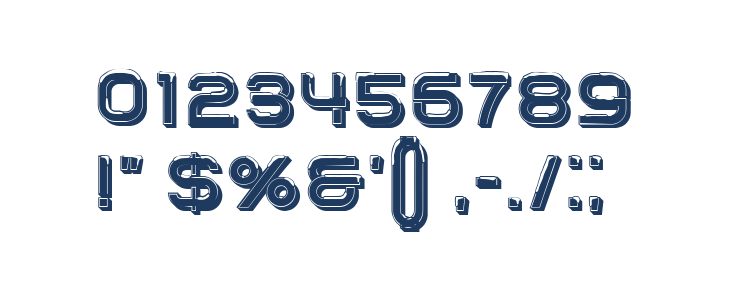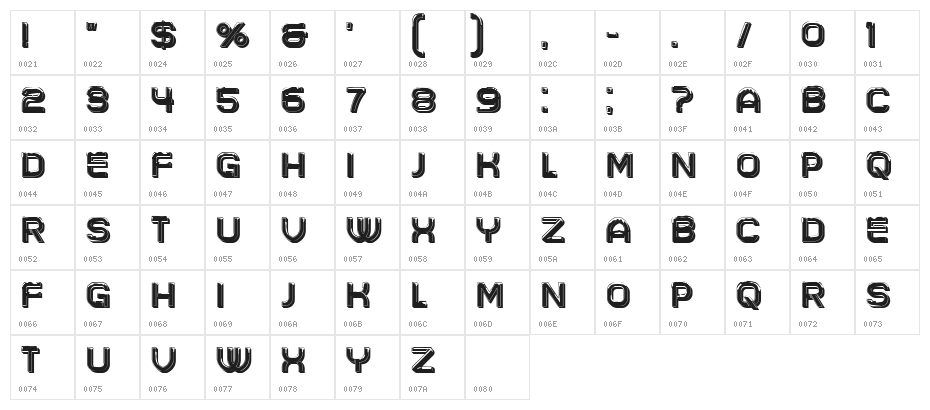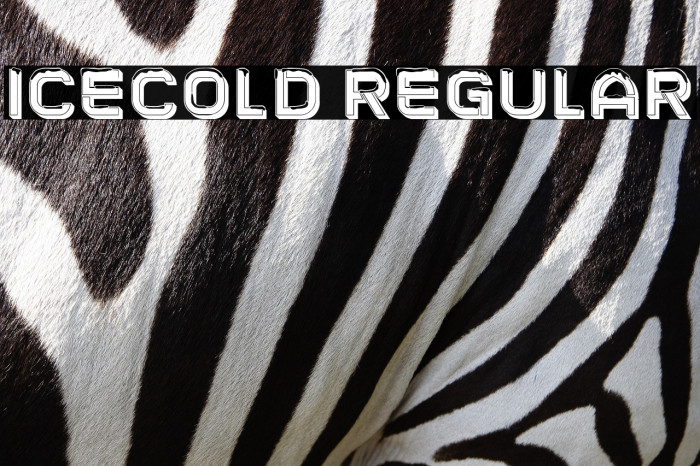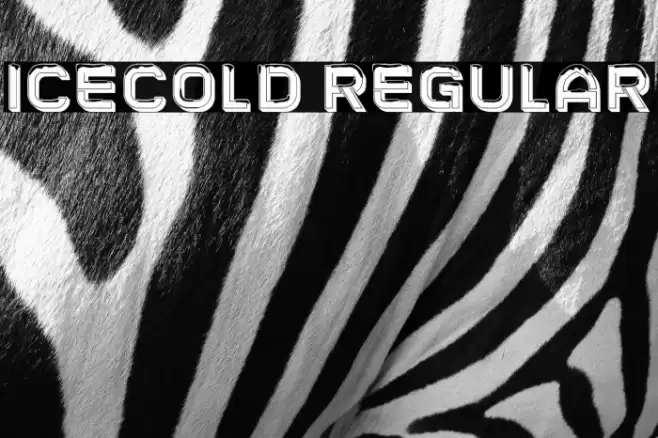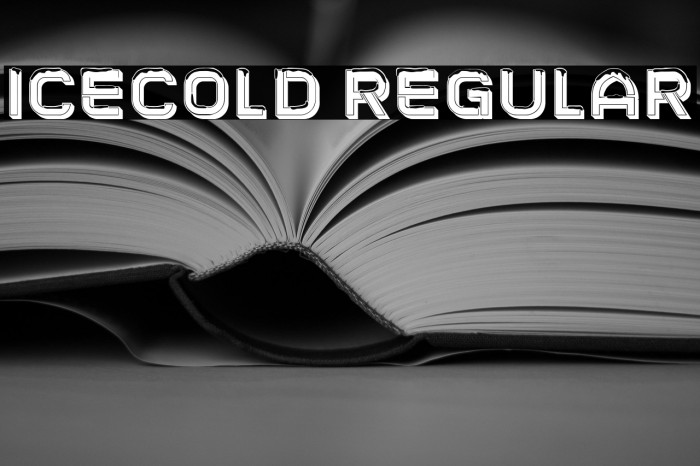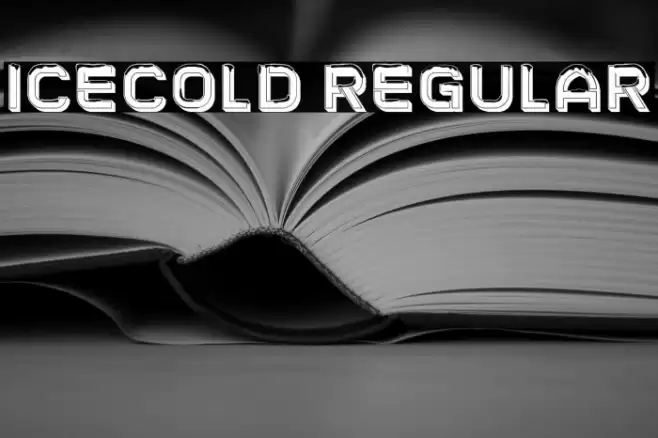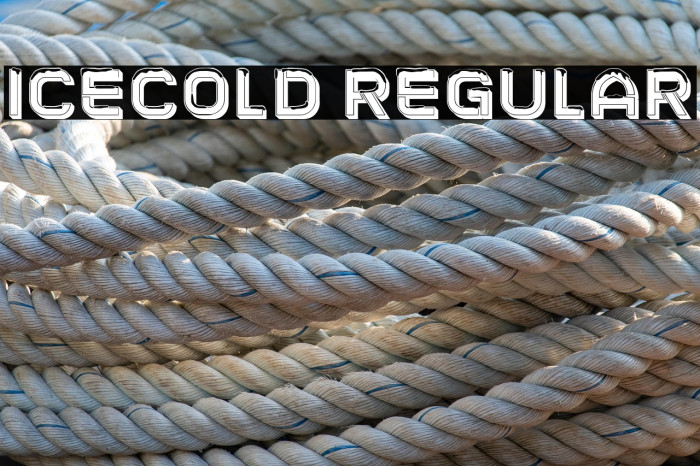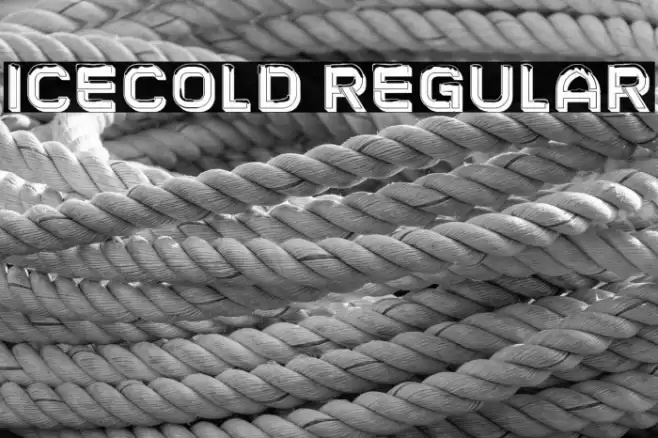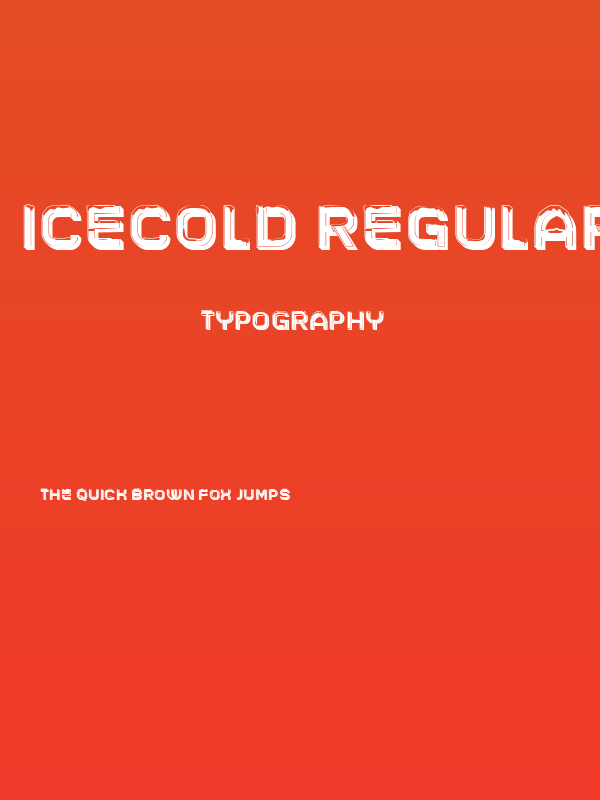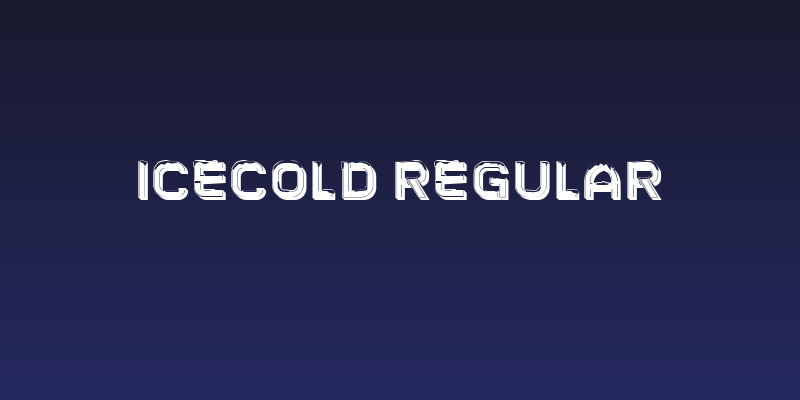
Icecold Regular Font
Icecold Regular Description
This font features a bold, geometric design with a three-dimensional effect that gives it a striking, modern appearance. The characters are outlined with a thick, shadow-like border that enhances their depth and visual impact. The uppercase and lowercase letters maintain a consistent style, with sharp angles and clean lines. The numerals and special characters are equally bold, ensuring uniformity across all glyphs. This font's unique style makes it ideal for eye-catching designs where a strong visual presence is required.